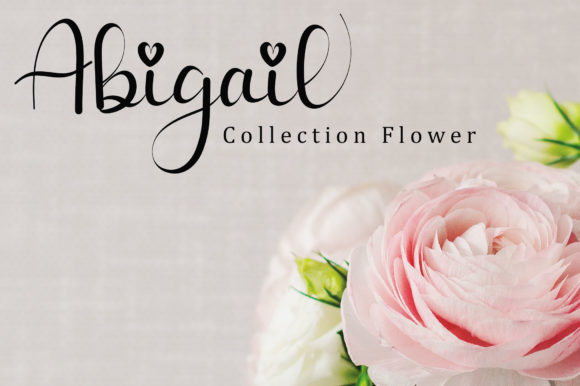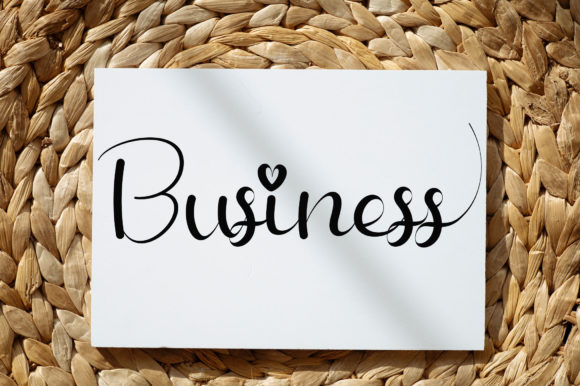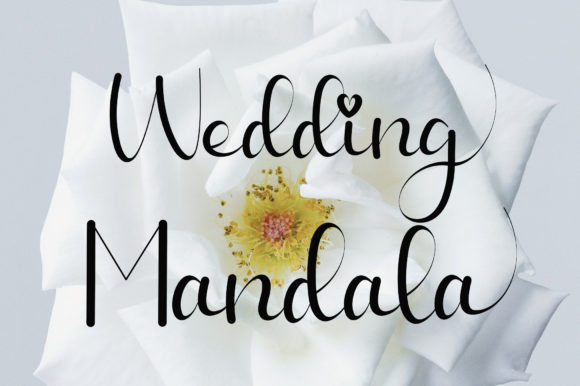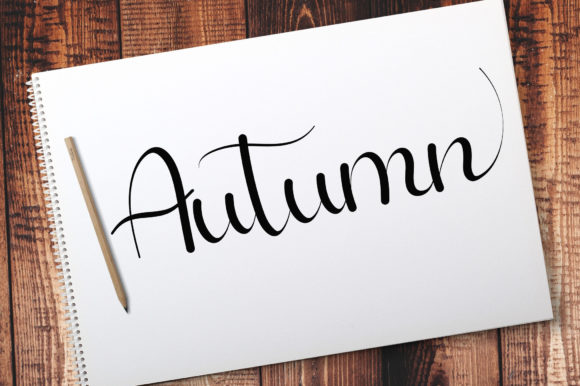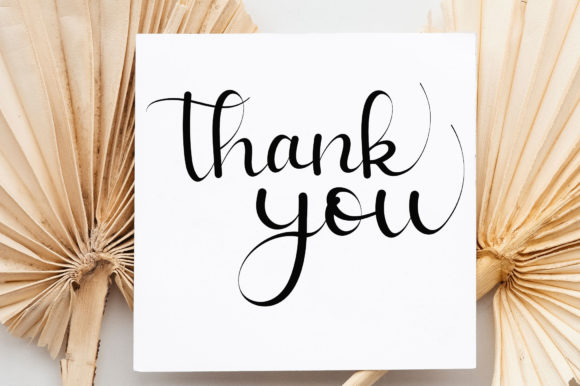
The Perfect Brushstroke: Unveiling the Bridgatte Font
Have you ever stared at a blank page, pen in hand, trying to conjure up the perfect phrase to express your feelings? It’s a moment we’ve all experienced, and one that sparks the creative flame within us. For designers, this moment is a catalyst for bringing ideas to life, and the right tools can make all the difference.
Enter the Bridgatte Font, a romantic and sweet calligraphy typeface that adds a luxury spark to any design project. With its characters dancing along the baseline, this font is sure to captivate your audience and elevate your designs to new heights. Whether you’re creating a wedding invitation, a luxurious brochure, or a heartfelt love letter, the Bridgatte Font is the perfect companion for your creative journey.
With its PUA encoding, accessing the amazing glyphs and ligatures of the Bridgatte Font is a breeze, making it a valuable asset for designers looking to add a touch of elegance to their work.
Bridgatte Font Review
As a designer, I was excited to try out the Bridgatte font. Here’s my honest review:
One of the things I like about Bridgatte is its elegant and refined feel. The font is perfect for creating a sophisticated and luxurious look, making it ideal for high-end branding and design projects.
The Bridgatte font also has a wide range of weights and styles, allowing for a lot of flexibility and customization options. This makes it easy to use in different contexts, from headings and titles to body text and captions.
- Elegant and refined feel
- Wide range of weights and styles
- Perfect for high-end branding and design projects
One of the main limitations of the Bridgatte font is its limited legibility in smaller sizes. While it looks great at larger sizes, it can become difficult to read at smaller font sizes, which may be a problem for certain design projects.
Additionally, the font may not be as versatile as some other fonts, making it less suitable for projects that require a lot of different font styles and sizes.
- Limited legibility in smaller sizes
- May not be as versatile as other fonts
Overall, I think the Bridgatte font is a great choice for designers who want to create a sophisticated and luxurious look. While it may have some limitations, its elegant feel and wide range of weights and styles make it a valuable addition to any designer’s toolkit.
Bridgatte Font is a beautiful, elegant script font that works well for a variety of applications, including:
– Luxury branding and marketing materials
– Formal event invitations and announcements
– High-end packaging and labeling
To get the most out of Bridgatte Font, use it sparingly and in combination with other elegant fonts to create a sophisticated look.